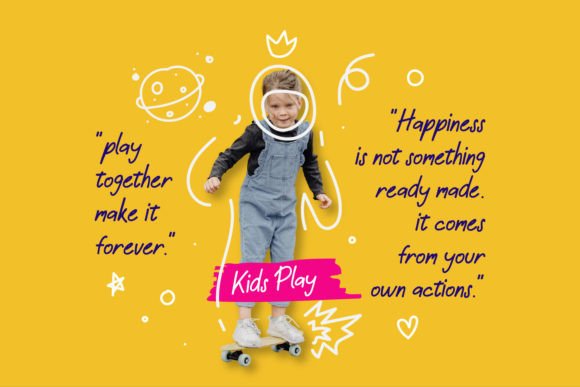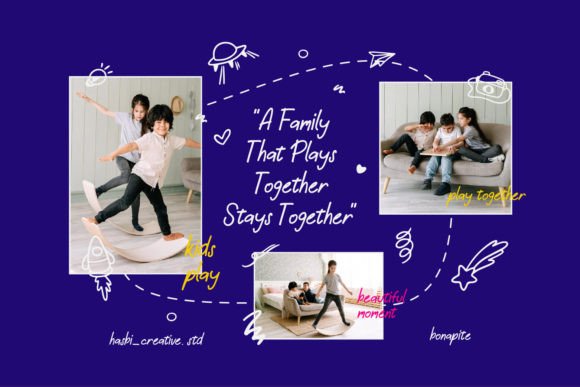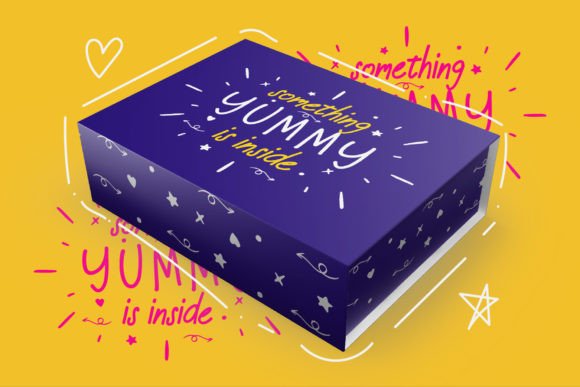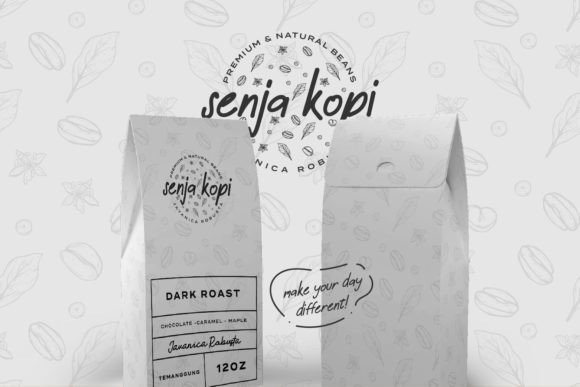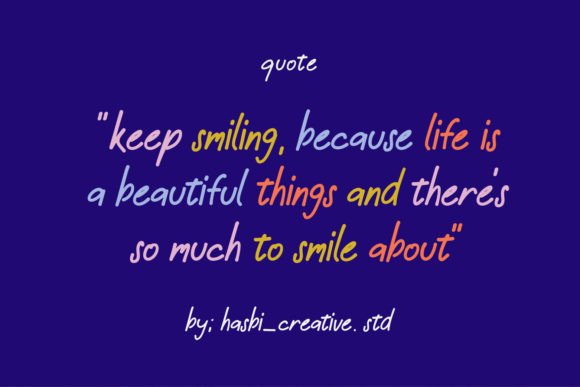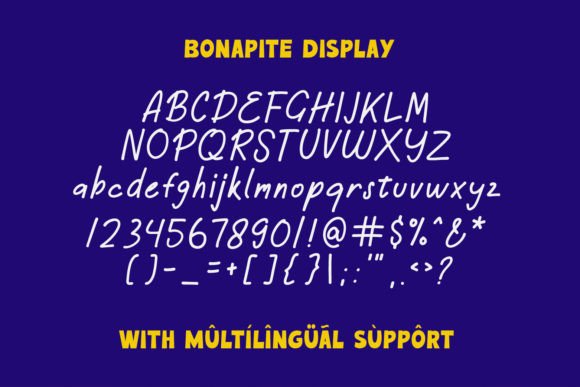
Introducing Bonapite Font: The Playful Display Font That Adds a Touch of Whimsy to Your Designs
Are you tired of using the same old fonts in your designs? Do you want to add a burst of personality and whimsy to your words? Look no further than Bonapite Font, a playful display font that’s sure to make your designs stand out. With its bouncy and energetic letters, Bonapite is the perfect choice for designers and crafters who want to add a touch of charm and delight to their work.
The Characteristics of Bonapite Font
Bonapite Font is a unique and eye-catching font that’s designed to make a statement. Its letters are bouncy and energetic, with a playful charm that’s sure to capture the attention of your audience. The font is perfect for use in a variety of design projects, from posters and flyers to social media graphics and website headers.
One of the key characteristics of Bonapite Font is its whimsical feel. The letters are designed to look like they’re dancing off the page, with a sense of movement and energy that’s infectious. This makes it perfect for designs that need to convey a sense of fun and playfulness.
The Benefits of Using Bonapite Font
So why should you choose Bonapite Font for your designs? Here are just a few benefits of using this playful display font:
- Adds personality to your designs: Bonapite Font is the perfect way to add a touch of personality and whimsy to your designs. Its bouncy and energetic letters are sure to make your words stand out and leave a lasting impression on your audience.
- Perfect for a variety of design projects: Whether you’re working on a poster, flyer, social media graphic, or website header, Bonapite Font is the perfect choice. Its versatility and charm make it suitable for a wide range of design projects.
- Easy to read and understand: Despite its playful feel, Bonapite Font is easy to read and understand. This makes it perfect for designs that need to convey a message or tell a story.
- Unique and eye-catching: Bonapite Font is a unique and eye-catching font that’s sure to make your designs stand out. Its bouncy and energetic letters are unlike anything else out there, making it the perfect choice for designers who want to make a statement.
How to Use Bonapite Font in Your Designs
Using Bonapite Font in your designs is easy. Here are a few tips to get you started:
- Use it as a display font: Bonapite Font is perfect for use as a display font. Use it to add a touch of personality and whimsy to your headlines and titles.
- Experiment with different colors and textures: Bonapite Font looks great in a variety of colors and textures. Experiment with different combinations to find the one that works best for your design.
- Pair it with other fonts: Bonapite Font pairs well with a variety of other fonts. Try pairing it with a clean and simple font to create a striking contrast.
| Font Name | Bonapite Font |
| Author | Hasbi Creative |
Bonapite Font is a playful display font that’s sure to add a burst of personality and whimsy to your designs. Its bouncy and energetic letters are perfect for designers and crafters who want to make a statement and leave a lasting impression on their audience. With its versatility, charm, and ease of use, Bonapite Font is the perfect choice for a wide range of design projects.